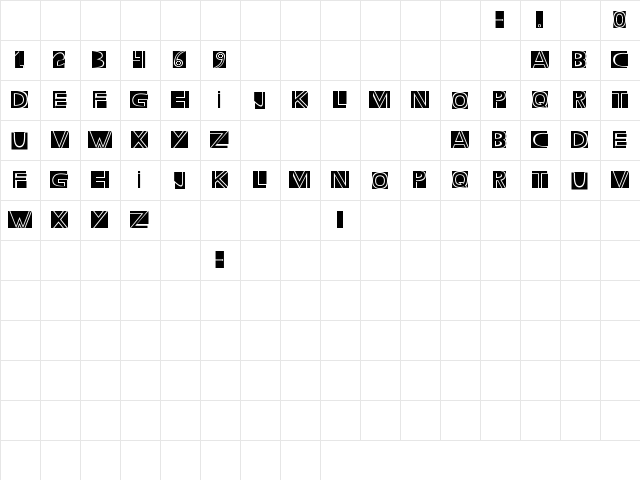
Holitter Block Regular
Design Context for Holitter Block Typeface
Holitter Block is a composed and adaptable typeface that performs quietly and consistently across a wide range of design contexts.